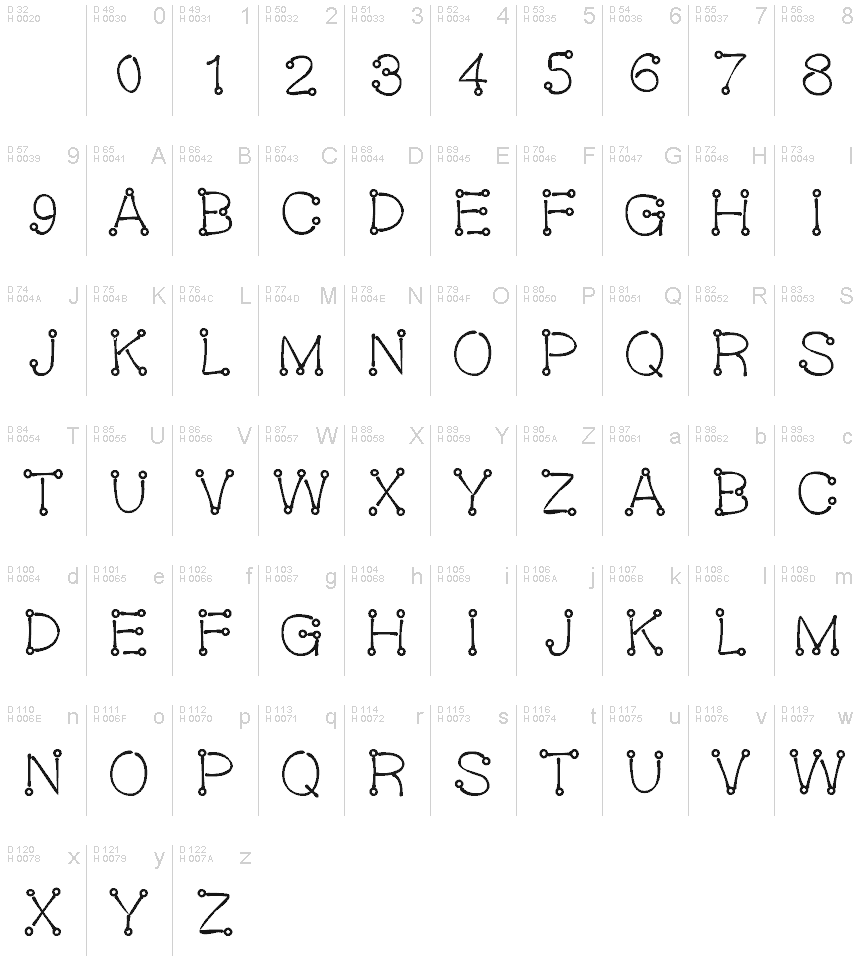
Oeillet
Oeillet is a captivating display font that exudes a sense of vintage charm and whimsical elegance. Designed by Gaelleing, this decorative typeface features a delightful blend of organic curves and geometric shapes, creating a visually striking and distinctive appearance. The font's idiosyncratic letterforms, with their playful flourishes and unexpected twists, lend a touch of whimsy and personality to any design.
Oeillet's versatility shines through, making it a versatile choice for a wide range of applications, from eye-catching headlines and logo designs to delightful packaging and editorial layouts.